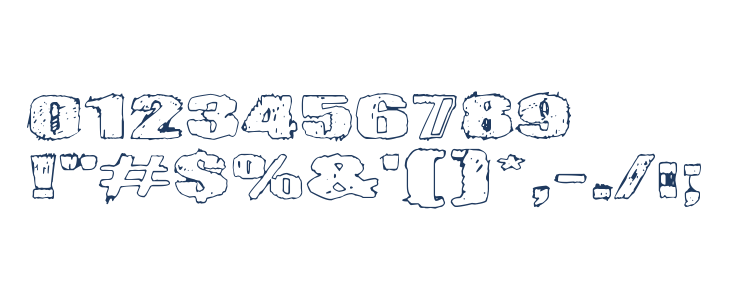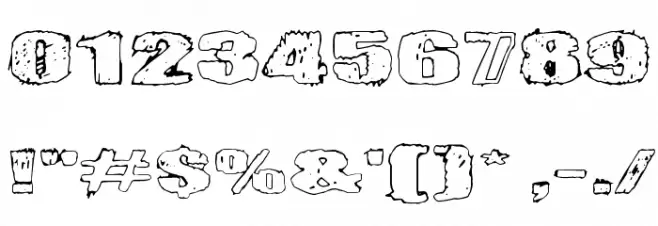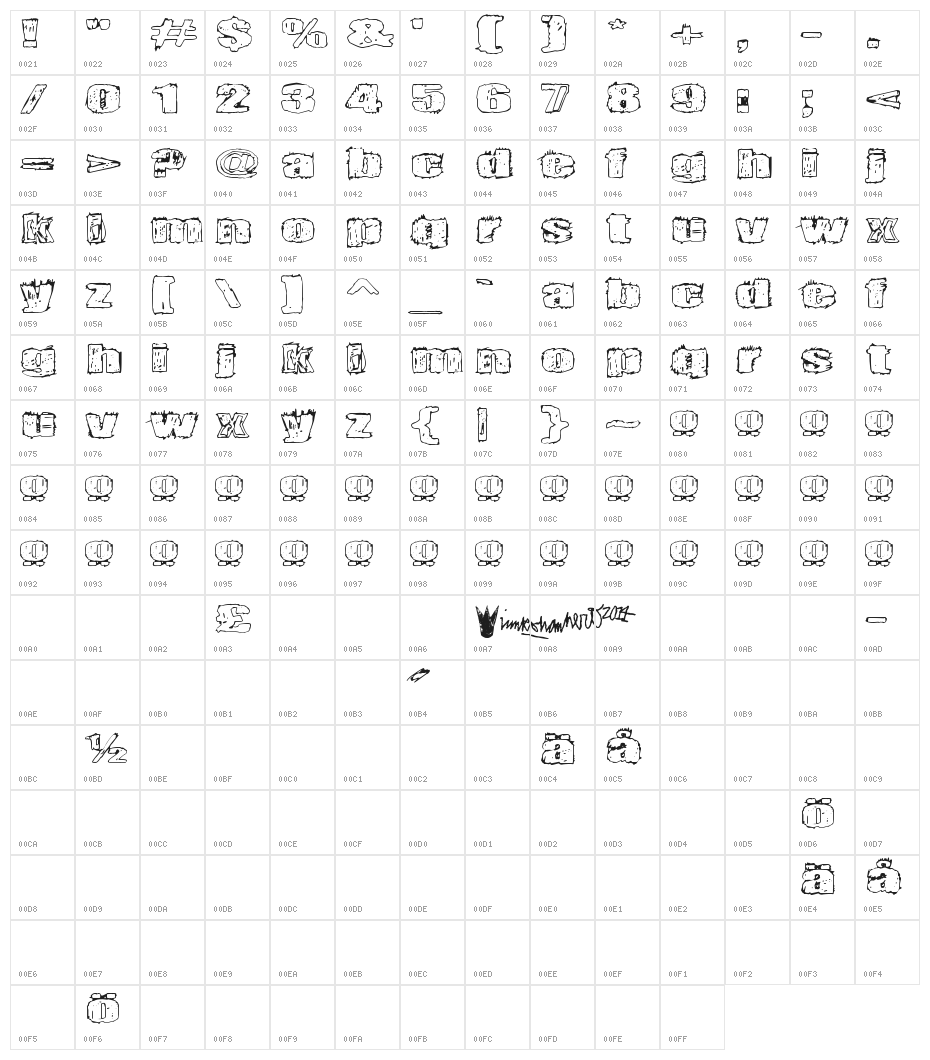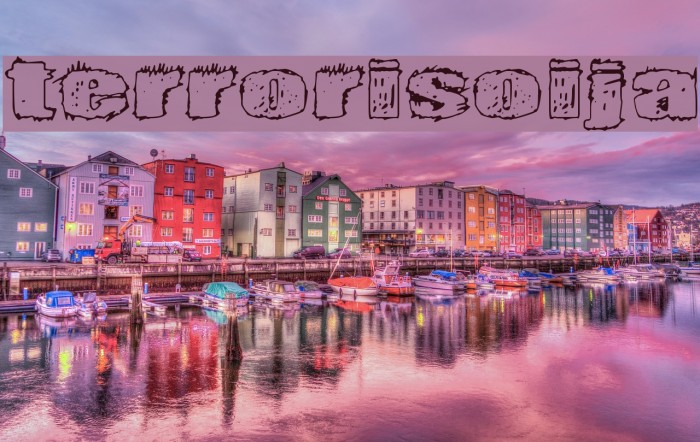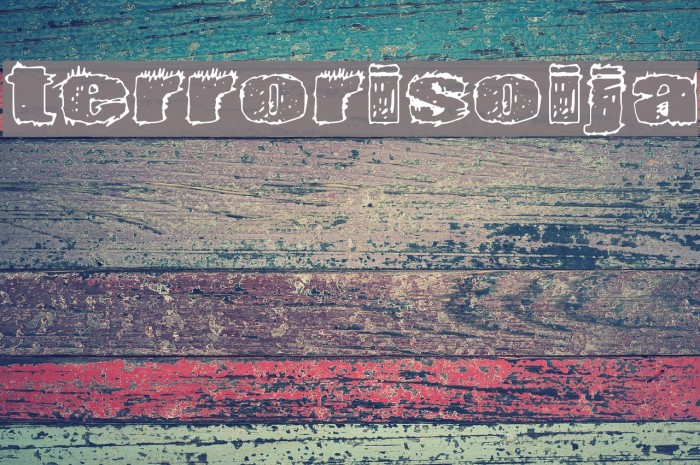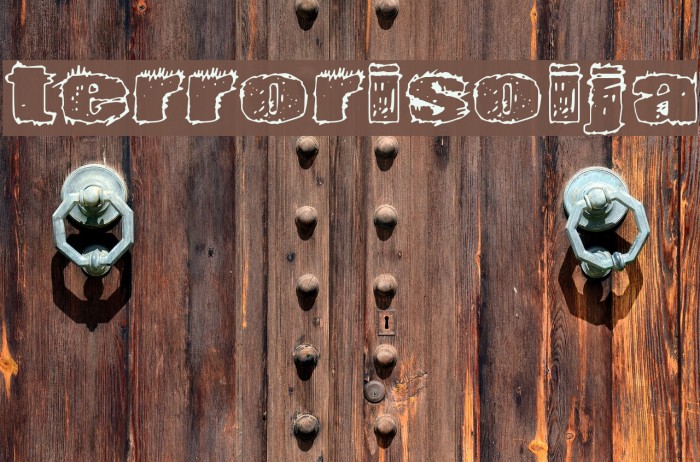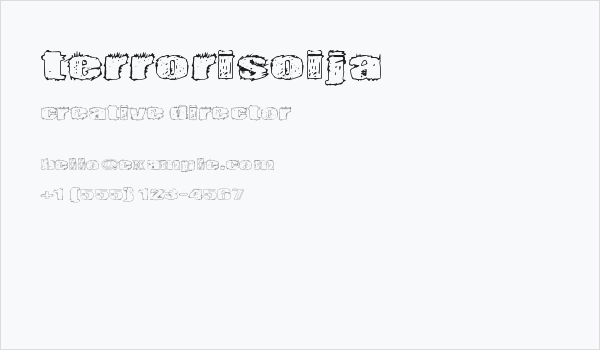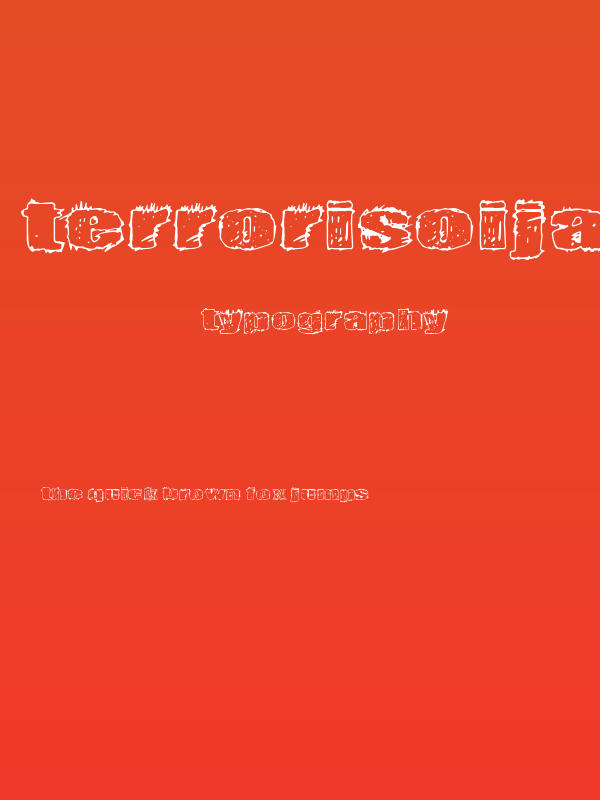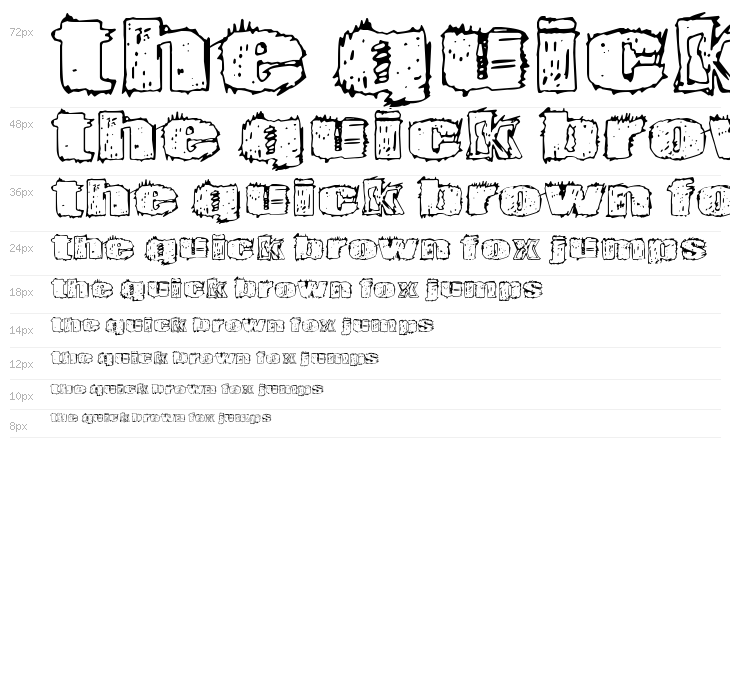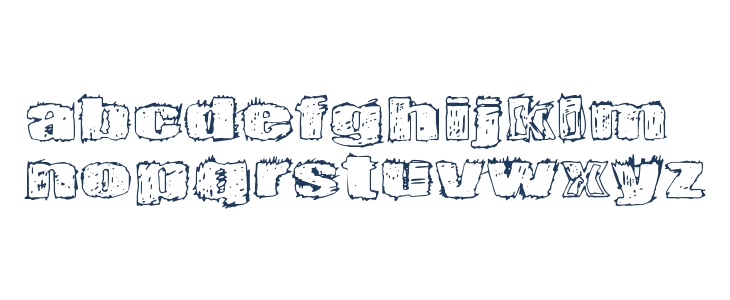
Terrorisoija Font
Terrorisoija Description
This font features a distressed and grungy style, with each character appearing as if it has been roughly sketched or eroded. The edges are uneven and jagged, giving it a raw and edgy appearance. The bold and blocky letterforms are filled with irregular textures, creating a sense of chaos and energy. This font is highly decorative and captures attention with its unique, rugged aesthetic. It evokes a sense of rebellion and is perfect for projects that require a bold statement. The characters are uniformly bold, with a consistent width and a medium level of contrast between the thick and thin strokes.
| Overall Style | Grunge, Edgy, Distressed |
| Proposed Projects | Ideal for album covers, horror movie posters, edgy branding, and streetwear designs. |